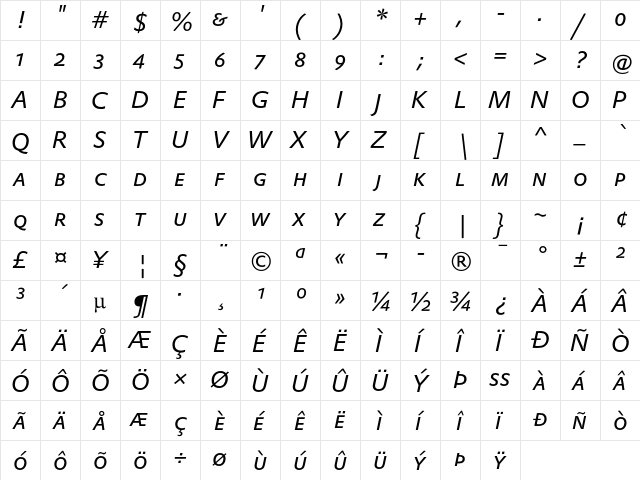
DTLProkyonTCaps Italic Font Preview
DTLProkyonTCaps Italic
Design Context for DTLProkyonTCaps Typeface
DTLProkyonTCaps offers clean, dependable letterforms without strong stylistic allegiance, making it a practical choice for designers who need flexibility. Its italic angle brings a sense of urgency and motion to the letterforms.
Pro Tip: Try DTLProkyonTCaps for annotation and caption copy alongside an upright companion — the contrast in angle creates a dynamic but ordered typographic system.